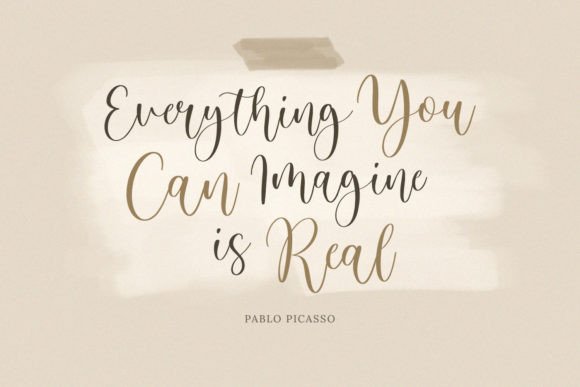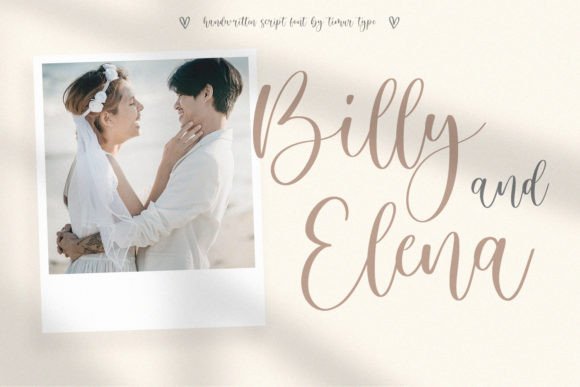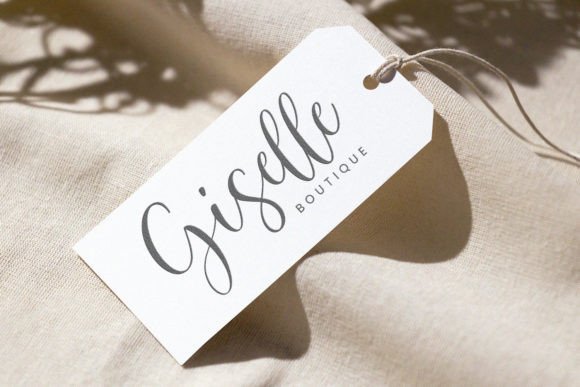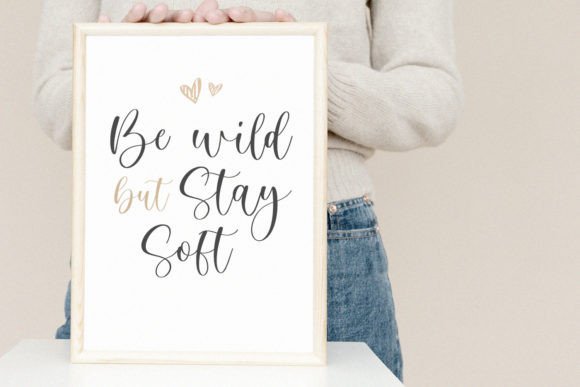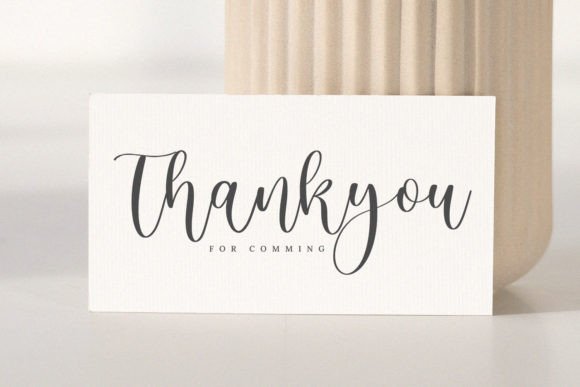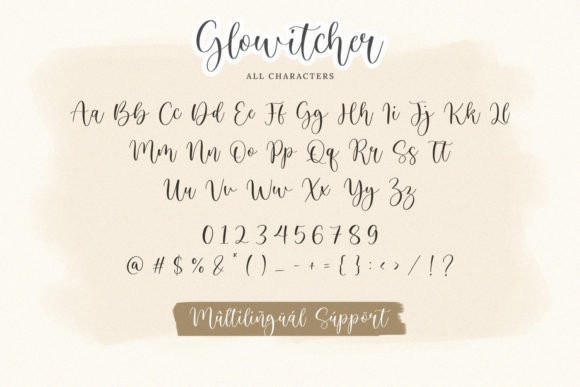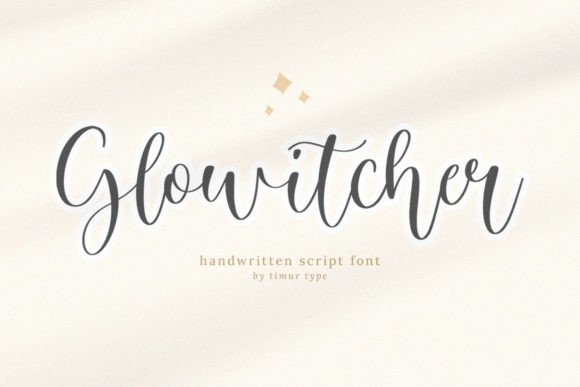
Introducing the Enchanting Glowitcher Font: Elevate Your Designs with Elegance and Charm
In the world of typography, fonts play a pivotal role in transforming ordinary designs into extraordinary ones. Among the myriad of fonts available, the Glowitcher Font stands out for its unique blend of charm and elegance. This beautiful, handwritten font is perfect for designers and crafters looking to add a personal touch to their projects. Whether you’re working on wedding invitations, thank you cards, quotes, greeting cards, logos, business cards, or any other design that requires a handwritten feel, Glowitcher is an excellent choice.
The Unique Appeal of Glowitcher Font
Glowitcher Font feels equally charming and elegant, making it versatile for various design applications. Its handwritten nature gives it a warm, inviting look that can make any project stand out. The font’s design is meticulous, with careful attention to detail that ensures it remains legible and aesthetically pleasing across different sizes and applications.
One of the key advantages of the Glowitcher Font is its versatility. Here are some of the design projects where Glowitcher can make a significant impact:
- Wedding Invitations: Add a touch of elegance and romance to your wedding invitations. Glowitcher’s flowing script makes it perfect for conveying the joy and beauty of your special day.
- Thank You Cards: Express your gratitude with style. The warmth of Glowitcher Font makes thank you cards more personal and heartfelt.
- Quotes: Give your favorite quotes a beautiful backdrop. Glowitcher’s elegant strokes bring out the essence of the words, making them more impactful.
- Greeting Cards: Whether it’s a birthday, anniversary, or holiday, Glowitcher adds a festive and personal touch to your greeting cards.
- Logos: For businesses looking for a brand identity that speaks of elegance and charm, incorporating Glowitcher Font into your logo can be a great strategy.
- Business Cards: Stand out in the professional world with business cards that feature the sophisticated look of Glowitcher Font.
Why Designers and Crafters Love Glowitcher
Designers and crafters are always on the lookout for fonts that can help them create unique and engaging designs. Glowitcher Font ticks all the right boxes:
- Customization: The font’s flexibility allows for a high degree of customization. Designers can adjust sizes, colors, and styles to fit their project’s needs.
- Uniqueness: In a sea of commonly used fonts, Glowitcher offers a fresh and distinctive look that can set your designs apart.
Tips for Maximizing the Potential of Glowitcher Font
To get the most out of Glowitcher Font, consider the following tips:
- Pair it with Complementary Fonts: When using Glowitcher in multi-font designs, pair it with fonts that complement its elegance and charm.
- Play with Colors: Experiment with different colors to find the perfect match for your design. Soft pastels, rich jewel tones, or classic black and white can all work beautifully with Glowitcher.
- Adjust Line Spacing: For optimal readability, especially in longer texts, adjust the line spacing to ensure your content looks balanced and easy to read.
Glowitcher Font is a versatile and beautiful addition to any designer’s toolkit. Its unique blend of charm and elegance makes it suitable for a wide range of projects, from personal to professional. By incorporating Glowitcher into your designs, you can add a touch of sophistication and warmth that resonates with your audience. Explore the possibilities with Glowitcher Font and elevate your designs to new heights of elegance and charm.